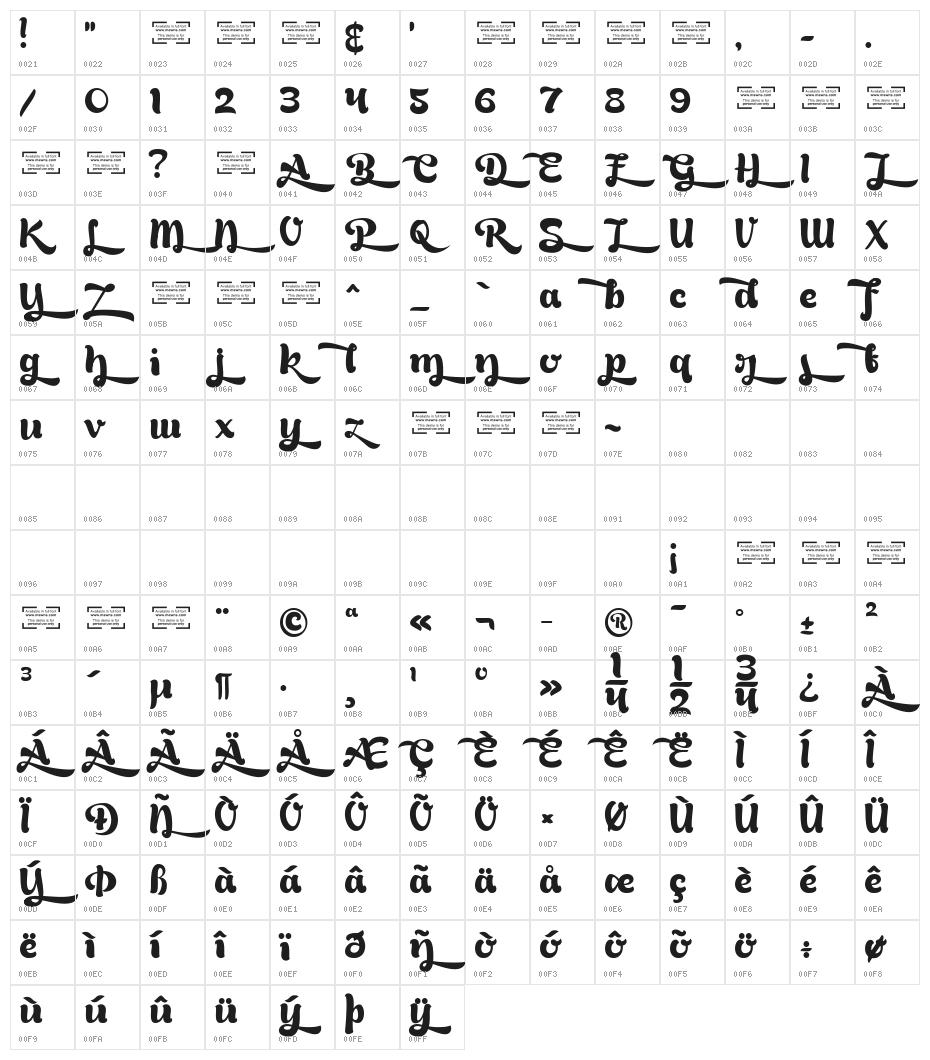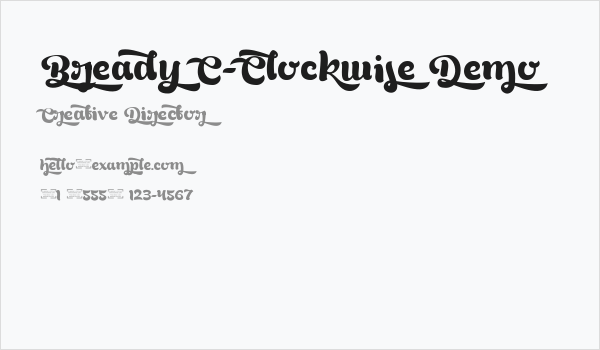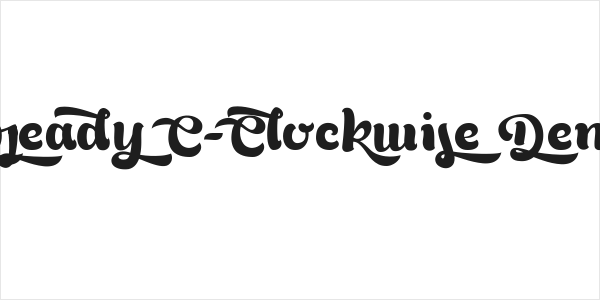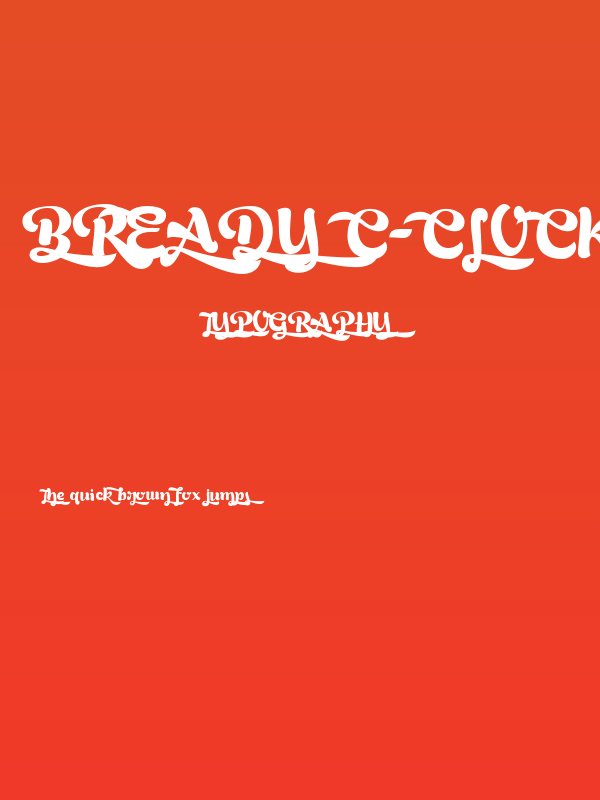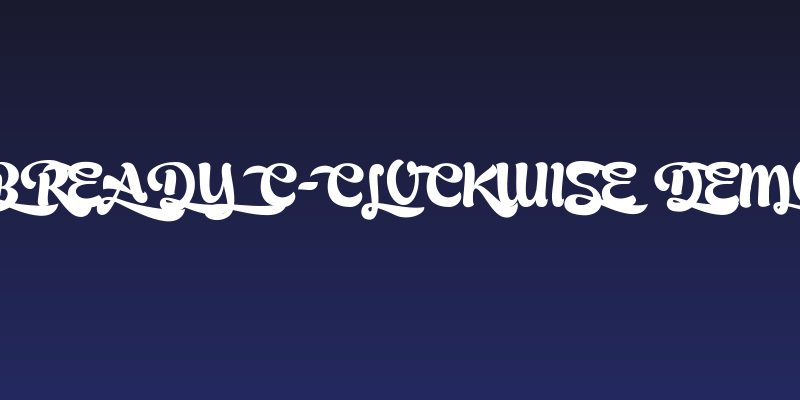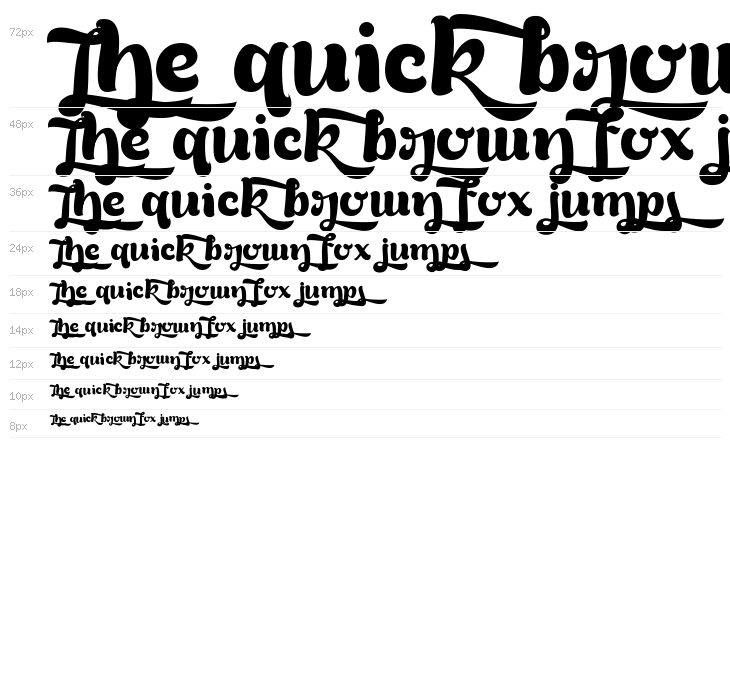
Bready C-Clockwise Demo Font
Bready C-Clockwise Demo Description
This font exudes a bold and dynamic presence with its thick, sweeping strokes and intricate curves. The uppercase letters are particularly striking, featuring elaborate flourishes that extend beyond the baseline, creating a sense of movement and elegance. The lowercase letters maintain this decorative style, offering a cohesive look throughout the typeface. Numbers and special characters are equally ornate, ensuring a consistent aesthetic. The overall design is reminiscent of calligraphic styles, making it suitable for projects that require a touch of sophistication and flair.
| Proposed Projects | Ideal for branding, invitations, and artistic projects that require a sophisticated and elegant touch. |